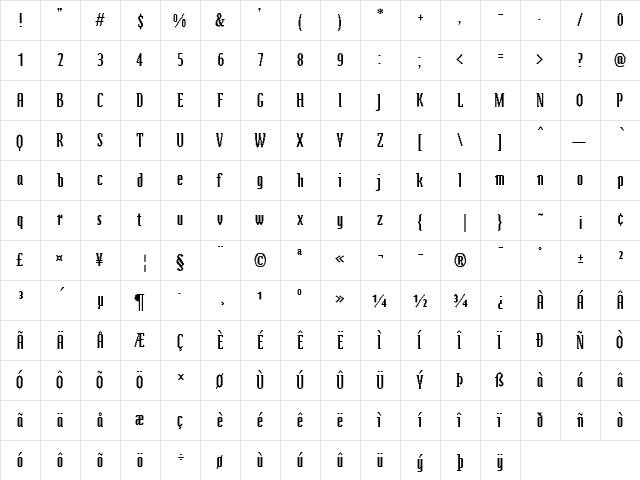
Zeitgeist MT Regular
Design Context for Zeitgeist MT Typeface
Zeitgeist MT is a composed and adaptable typeface that performs quietly and consistently across a wide range of design contexts.